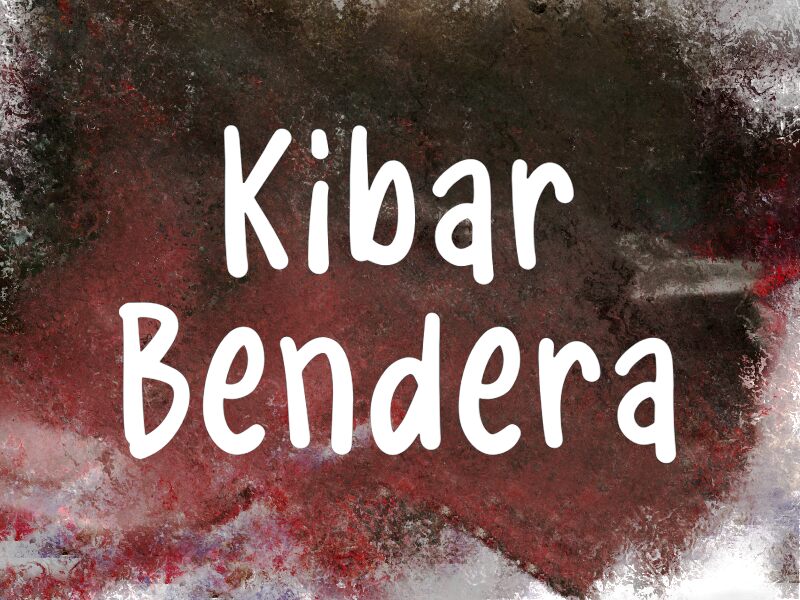
K Kibar Bendera font captures an informal handwritten style within its cheerful characters. This free font from wepfont.com evokes a relaxed mood, combining a handcrafted feel with contemporary applications in casual or creative projects. The font letters originate from an unusual intersect of ideas for an approachable aesthetic and unique visual impact.
Incorporate K Kibar Bendera in cool merchandising designs, casual product packaging, creative logos or magazine covers, printed marketing elements, or even stylish, fun branding needs. Try it in digital environments like blogs, friendly news sites, or amusing illustrations or animations for the web.
Kibar Bendera is a unique and stylish free font that adds a modern touch to your design projects. This font is perfect for various applications, from branding to social media graphics. With its distinctive character and aesthetic appeal, Kibar Bendera stands out in any design.
Whether you are looking to create eye-catching headlines or elegant body text, this free font offers versatility and ease of use. Its clean lines and well-balanced proportions make it a great choice for both print and digital media.